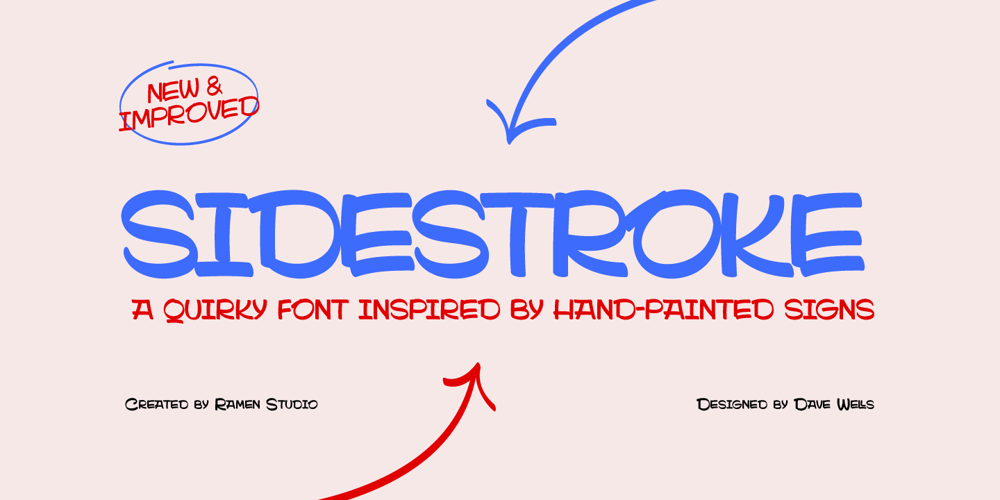
Sidestroke Font Family was designed by Dave Wells and published by Ramen. Sidestroke contains 2 styles and family package options. The typeface is inspired by our love of old hand-painted signs in butchers, and based on some very quick sketches using a brush pen to find what shapes worked. There is quite a quirky element to the type, as we tried to create the original sketches by rotating the brush pen to reflect the strokes of a paint brush. This lead to a horizontal stressing, which is most noticeable in letters like C, G, S and J.Sidestroke comes in 2 styles, both a standard solid version, and a pre-shadowed outline version. This can be outlined and divided in Illustrator to quickly create an alternate coloured fill for your letters.The lowercase letters have been designed to automatically horizontally align with any uppercase letters, which is a great shortcut when creating logos or other unique type layouts.